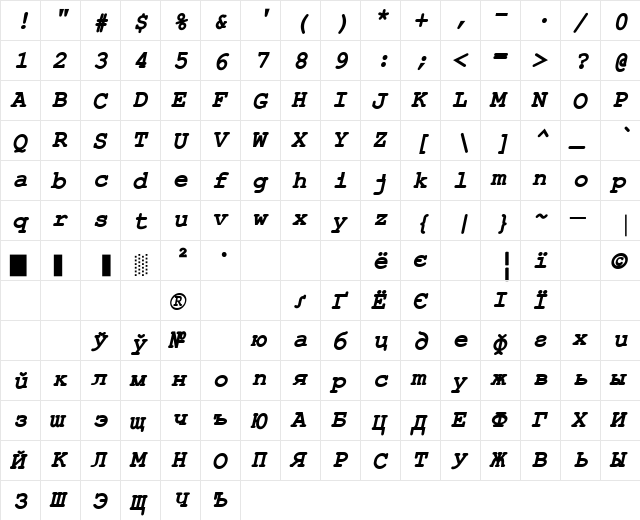
ER Kurier KOI-8 Bold Italic
Design Context for ER Kurier KOI-8 Typeface
ER Kurier KOI-8 offers clean, dependable letterforms without strong stylistic allegiance, making it a practical choice for designers who need flexibility. Its italic angle brings a sense of urgency and motion to the letterforms. Its bold stroke weight gives it real presence on the page.
Pro Tip: Use ER Kurier KOI-8 for emphasis, pull quotes, and subheadings where its slanted energy can add rhythm to the layout.